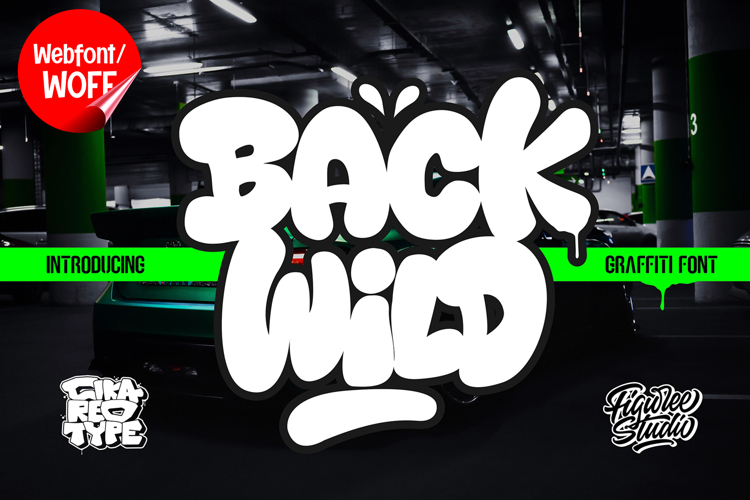
Back Wild | Rounded Graffiti Webfont
Back Wild is a rounded graffiti webfont designed to bring playful street-art energy and modern urban aesthetics into website design. Inspired by bubble graffiti, freestyle street lettering, and underground spray-paint culture, this font features soft rounded shapes and bold character movement that create a fun and eye-catching visual identity. It is an excellent choice for projects that aim to deliver authentic graffiti visuals with a friendly yet rebellious urban character.
Back Wild includes a complete set of uppercase characters designed with rounded graffiti aesthetics. The letterforms feature smooth curves, chunky proportions, and energetic structures that create a lively street-art appearance inspired by throw-up graffiti and bubble-style urban murals. These characteristics make it ideal for headlines, banners, hero sections, promotional graphics, and featured content where strong urban visuals are needed.
In addition to letters, the font includes numbers and punctuation, allowing flexible usage across various parts of a website. It works well for streetwear branding, gaming websites, music platforms, hip hop projects, youth campaigns, and creative portfolios. Each character maintains a consistent rounded graffiti style, ensuring a cohesive and unified visual identity throughout the design.
With multilingual support, Back Wild includes a wide range of accented characters, making it suitable for international websites and global audiences. This ensures content remains clear and visually consistent across different languages while preserving the playful and expressive graffiti aesthetic.
The rounded graffiti style of Back Wild makes it especially suitable for urban-themed websites, entertainment campaigns, youth-oriented branding, and creative digital projects. Its rounded structure and energetic appearance create a fun street-art atmosphere that helps websites stand out in visually competitive environments. The graffiti-inspired forms add movement, creativity, and authentic underground character while maintaining a softer and more approachable appearance.
Despite its decorative and expressive appearance, Back Wild is designed with readability in mind. The spacing and proportions are carefully balanced to ensure clarity, particularly in display sizes. This allows designers to use the font effectively for impactful headings and short content without sacrificing usability.
Back Wild is a webfont that combines rounded graffiti aesthetics with modern digital performance. Its smooth forms, energetic movement, and urban character create a distinctive typographic presence that enhances website design. For projects that require a playful, stylish, and visually engaging graffiti font, Back Wild offers a versatile and powerful solution.